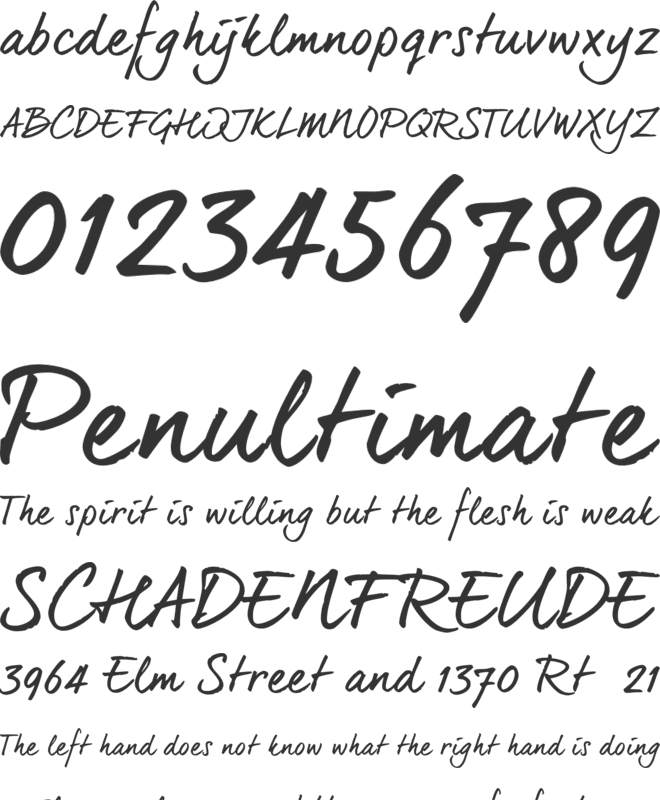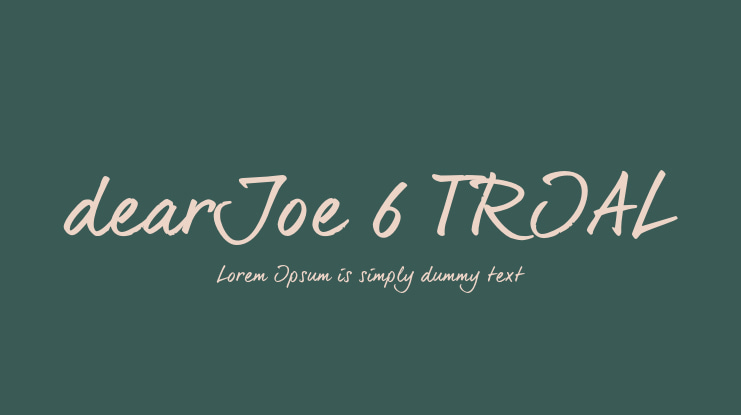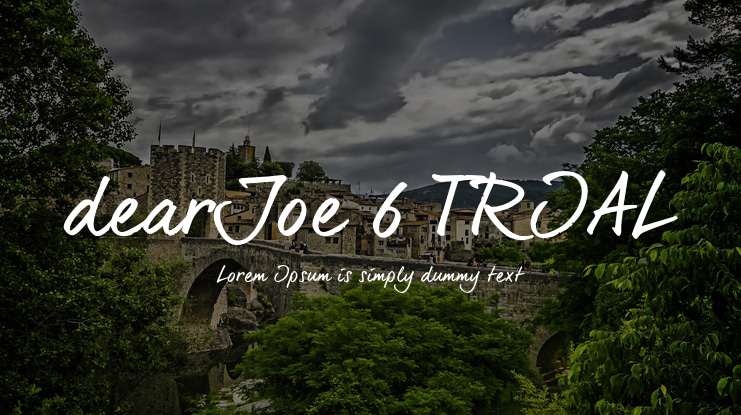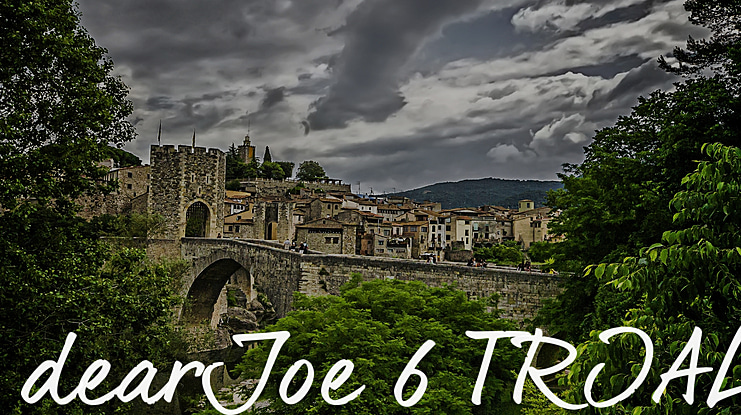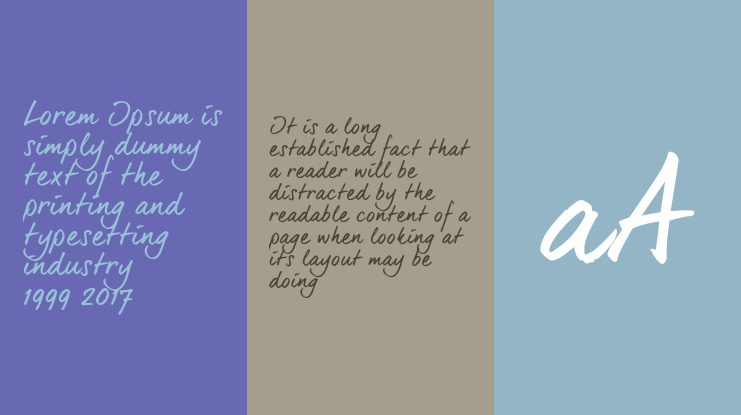
dearJoe 6 TRIAL Font
JJW van der Ham
This is a demo version of the dearJoe 6 font. In this demo version you are missing out on the 250 ligatures that really make this font work. Please check out the dearJoe 6 image so you can see what I mean: this font is meant to come as close to real handwriting as possible.